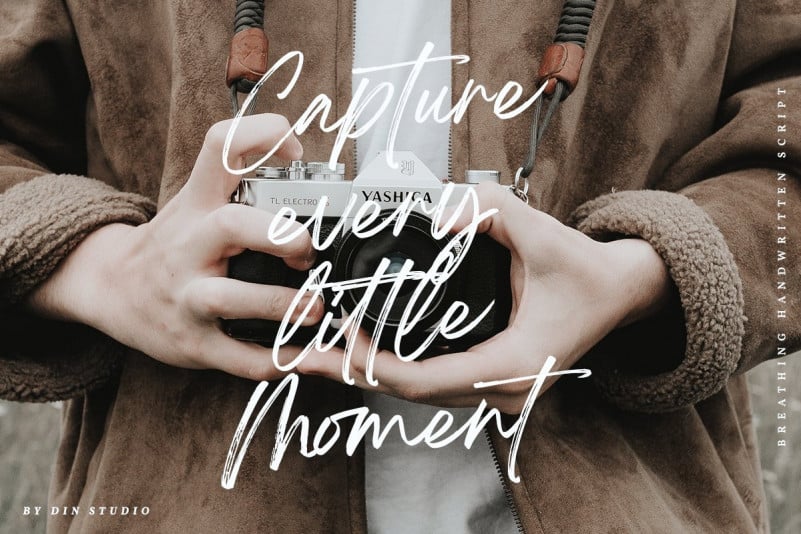
Breathing Brush Font
Breathing Brush Font is a casual, fun dispay font, created by using a brush pen. A beautiful brush signature font. Made for any professional project branding. Every letter has a unique and beautiful touch.
This type of writing is perfect for logos, fashion, stationery, magazines, menus, books, invitations, greeting cards, packaging, labels, apparel, t-shirt, wall, billboard, flyer, marketing, business cards, etc.